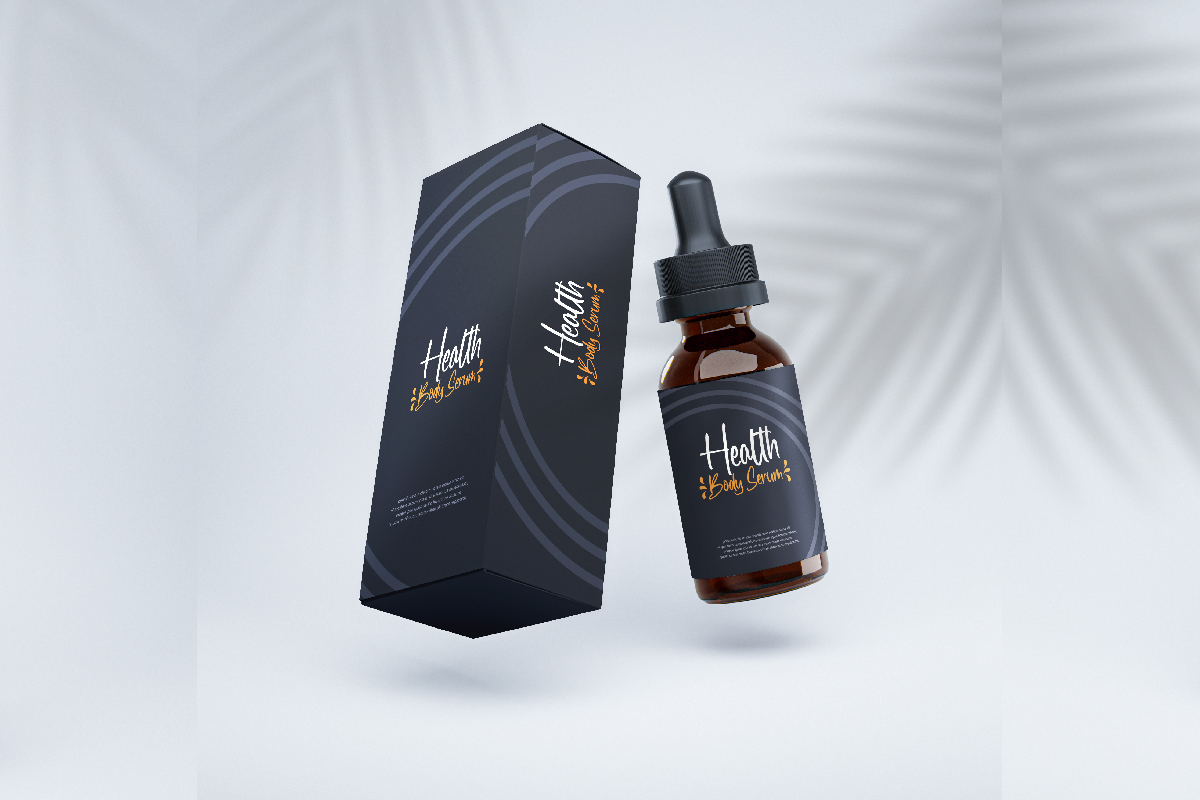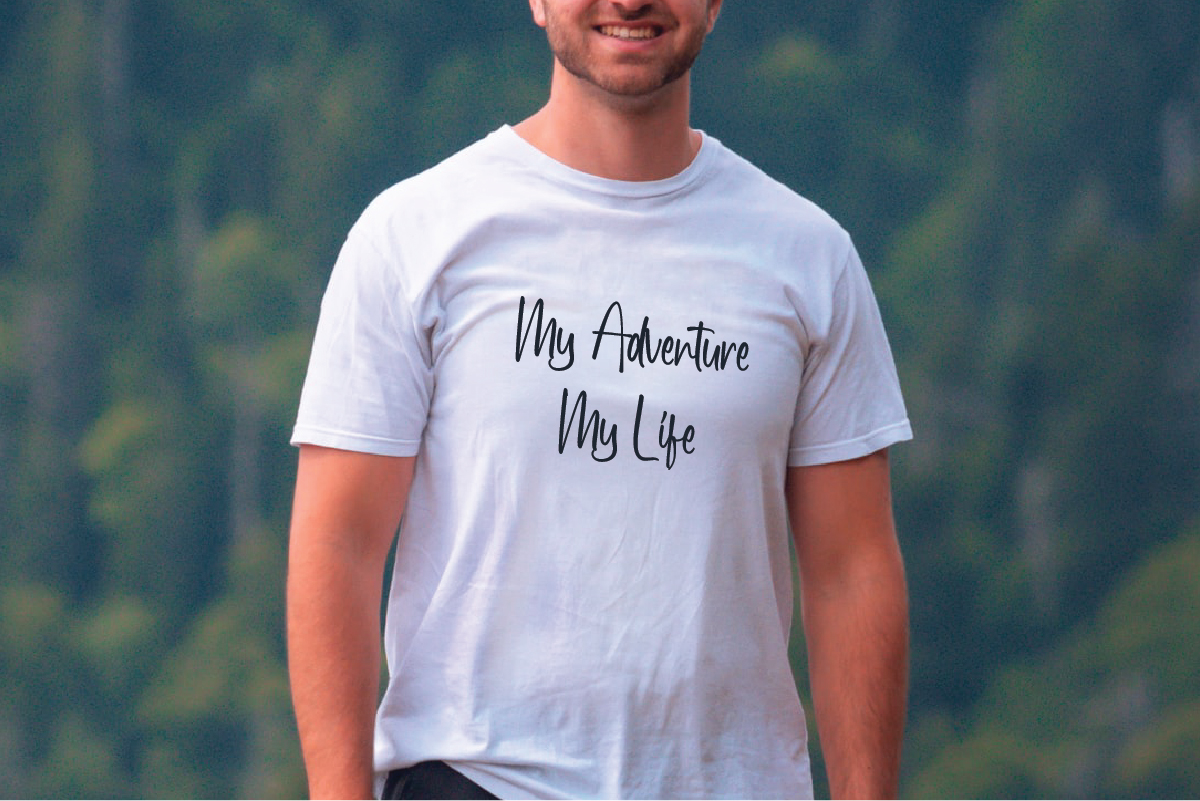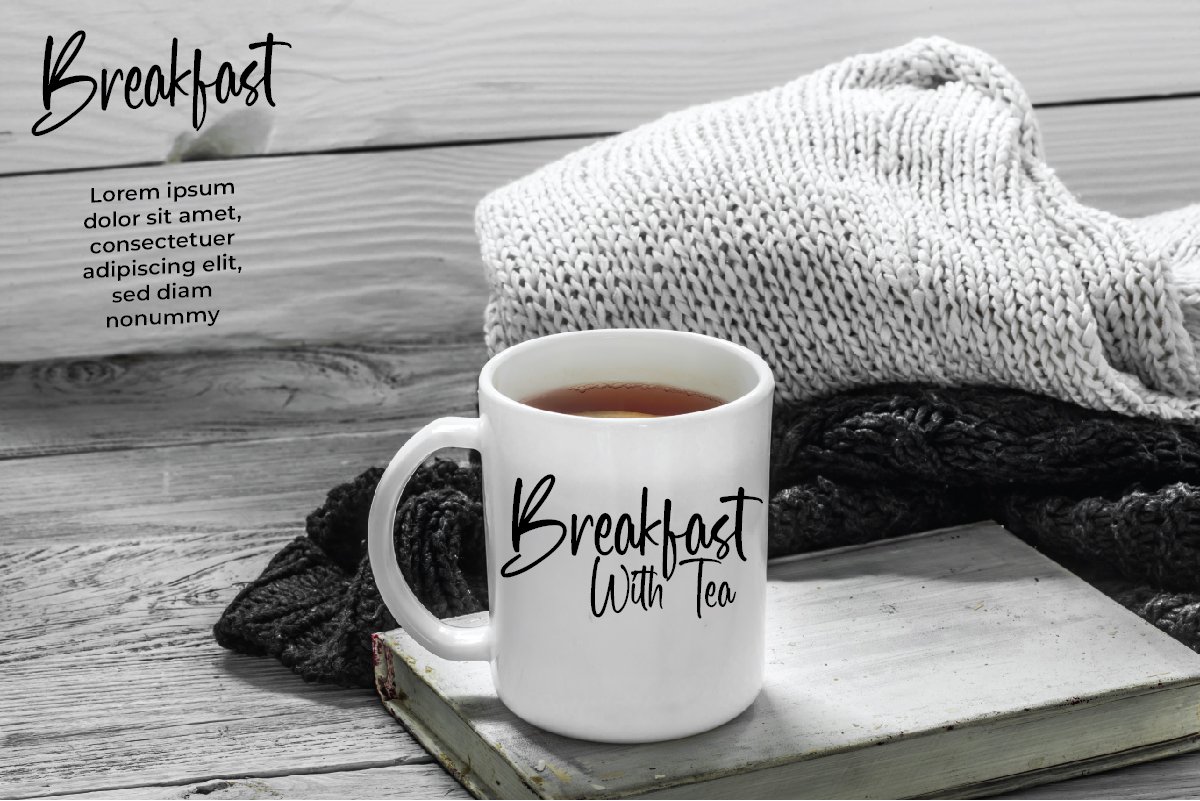
Hello Blushing Font
Hello Blushing Script Font
This is a stunning handwriting calligraphy font with a stylish characters. This font is crafted carefully in every its single scratch, created to look as close to a flawless handwritten script so that it can create the perfect combination on each glyph. When we make this font, we really want to create a touch that is so free-flowing that it gives a natural impression on its use later. For example, if you want letter ‘s’ that has a flow sketch with letter ‘t’, you can find it in ‘st’ ligature glyph (just type in the text form below for trying). This awesome script is for anyone who are needing of elegance and stylish for their designs.
Hello Blushing Font includes full set of Uppercase and Lowercase Basic Characters, Numerals and Punctuation. Also it contains ligatures and alternates characters to perfectly make natural calligraphy look that add more beautiful and aesthetic fonts to perfect your extraordinary project. Hello Blushing will be awesome for wedding, engagement, branding, invitations etc